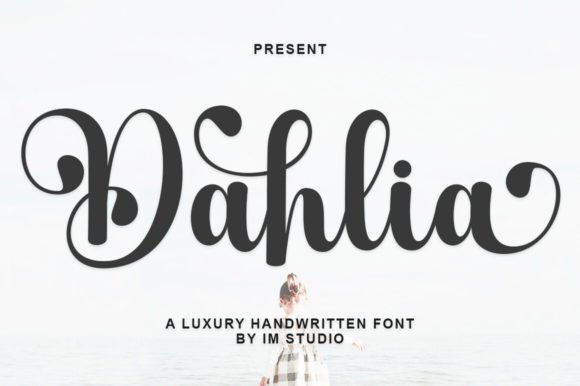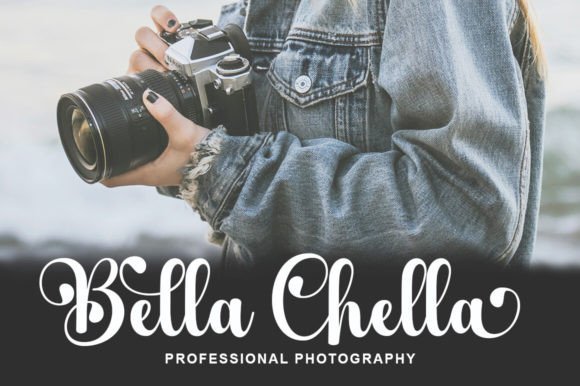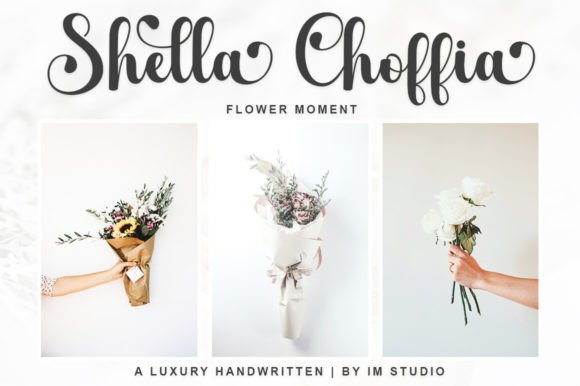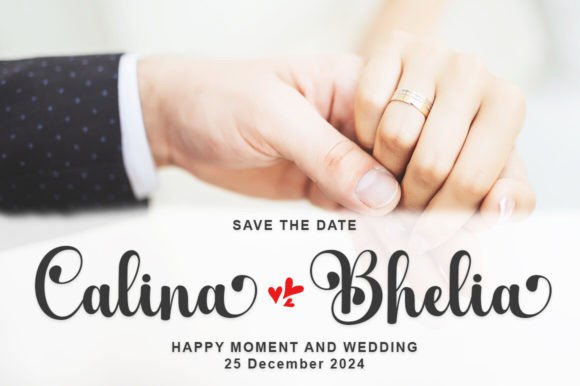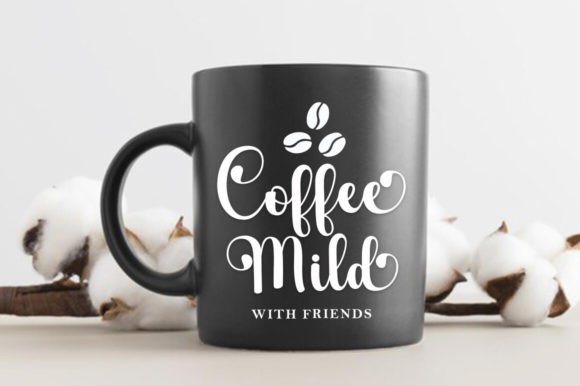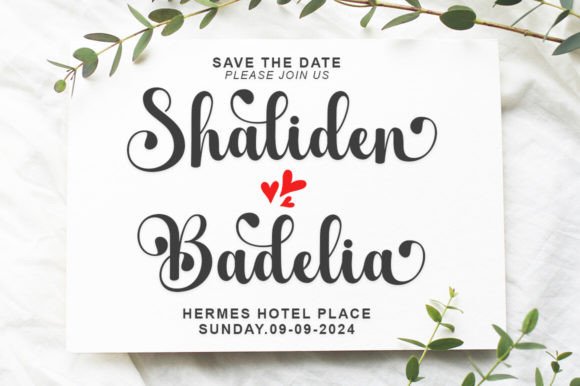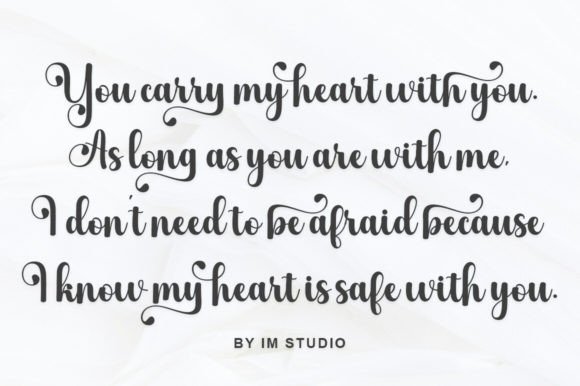
Unleashing the Elegance: A Creative’s Dream Font
Have you ever stared at a blank page, waiting for inspiration to strike? For designers, this moment is a familiar one – a blank canvas begging for a touch of creativity. It’s in these moments that the perfect font can be the difference between a good design and a great one.
Enter the Dahlia Font, a stunning script font that effortlessly exudes charm and elegance. This beautiful font is a tribute to classic calligraphy, making it the perfect choice for designers looking to add a touch of sophistication to their projects. Whether it’s branding, titles, or wedding designs, the Dahlia Font has the power to elevate any design to new heights.
For designers, the Dahlia Font is a valuable asset – a reliable go-to font that never fails to impress. Its versatility and timeless charm make it an ideal choice for a wide range of design projects, from labels to logos, and everything in between.
Dahlia Font Key Features
- Font Family: Dahlia Font is a script font designed to evoke elegance and sophistication. It is available in multiple font styles, including Regular, Italic, Bold, and Bold Italic.
- Unique Characteristics: Dahlia Font features a unique, flowing script design with elegant connections between letters, making it perfect for adding a touch of sophistication to wedding invitations, greeting cards, and other special occasion designs.
Dahlia Font Review
I’ve had the chance to work with the Dahlia Font, and I must say it’s a unique and charming addition to any design project. ✨ The elegant, flowing script style is perfect for titles, headings, or any text that needs a touch of sophistication.
- ✨ Elegant and sophisticated script style
- ✨ Beautifully rendered ligatures and swashes
- ✨ Works well in both digital and print formats
However, there are some limitations to consider: ⚠️ The font’s intricate design can make it difficult to read at very small sizes, and it may not be the best choice for body text. Additionally, the font’s high contrast between thick and thin strokes can sometimes result in a “ragged” appearance, especially in digital formats.
Overall, I think the Dahlia Font is a great choice for designers who want to add a touch of elegance and sophistication to their work. Just be mindful of the potential limitations, and use it in contexts where its unique style can shine.
The Dahlia Font is a beautiful, elegant script font that is perfect for:
- Special occasion cards and gifts
For the most effective use of the Dahlia Font, keep the background simple and let the font be the focal point. Experiment with different font sizes, colors, and styles to create a unique and eye-catching design.